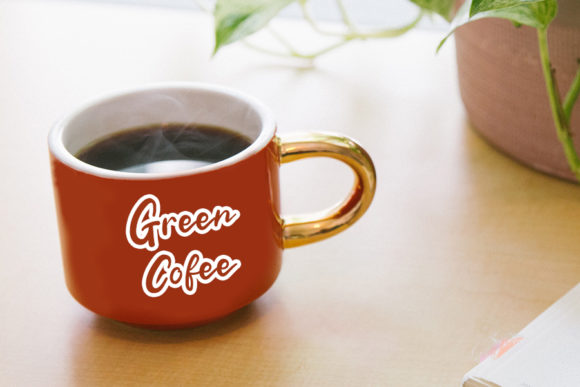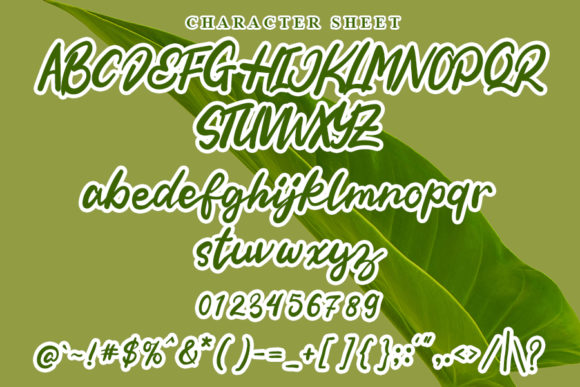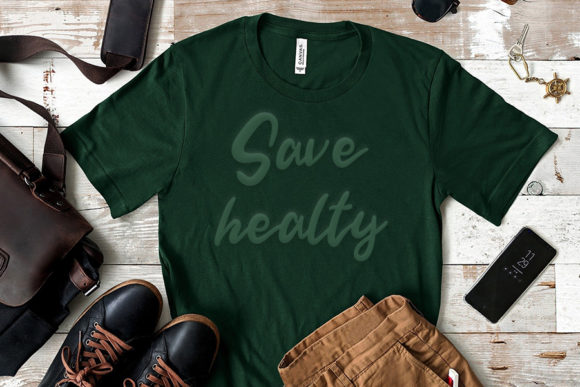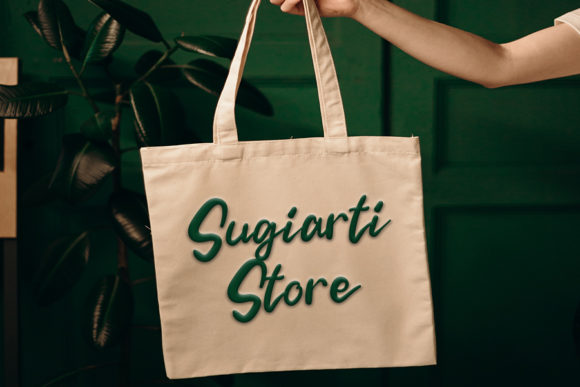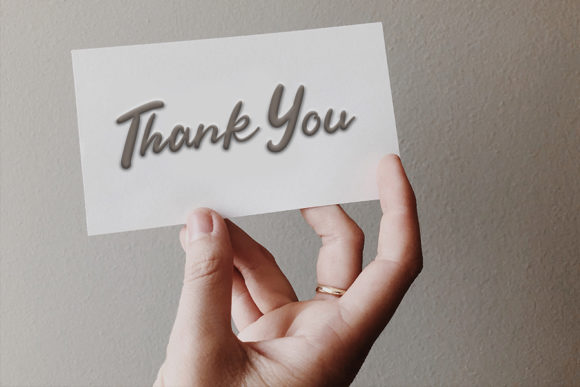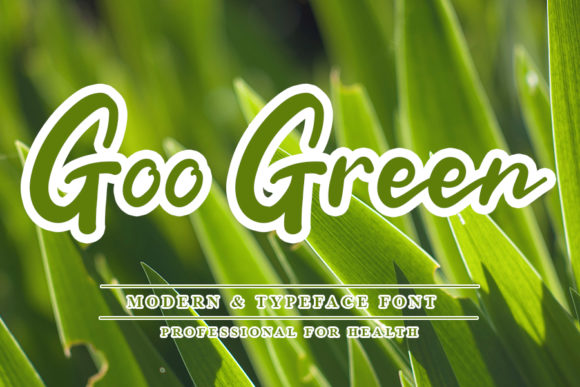
Goo Green Font: A Beautifully Handwritten Typeface for Your Creative Projects
Are you a designer or crafter looking for a unique and romantic font to add a personal touch to your creations? Look no further than Goo Green, a stunning natural handwritten font that exudes joy and elegance. In this article, we’ll explore the characteristics of Goo Green and how it can elevate your designs, from invitations and cards to branding and more.
The Charm of Goo Green
Goo Green is a beautifully crafted handwritten font, characterized by a gorgeous flow that makes it a delight to use. Its dainty and joyful nature makes it perfect for adding a romantic, personalized touch to any design. Whether you’re creating wedding invitations, greeting cards, or social media graphics, Goo Green is sure to captivate your audience with its whimsical charm.
Key Features of Goo Green
- Natural Handwritten Style: Goo Green boasts a beautifully natural handwritten style, complete with subtle imperfections and variations that give it a human touch.
- Dainty and Joyful: The font’s dainty and joyful nature makes it perfect for designs that require a lighthearted and playful feel.
- Romantic and Personalized: Goo Green’s elegant flow and beautiful letterforms make it ideal for creating romantic and personalized designs, such as wedding invitations and love letters.
- Versatile: This font is versatile and can be used for a wide range of design projects, from digital graphics to print materials.
Using Goo Green in Your Designs
Goo Green is an incredibly versatile font that can be used in a variety of design projects. Here are some ideas to get you started:
- Wedding Invitations: Add a romantic touch to your wedding invitations with Goo Green, perfect for creating beautiful and elegant save-the-date cards, wedding programs, and more.
- Greeting Cards: Use Goo Green to create personalized greeting cards for special occasions, such as birthdays, anniversaries, and holidays.
- Branding: Incorporate Goo Green into your brand identity for a unique and playful touch, perfect for businesses that want to stand out from the crowd.
- Social Media Graphics: Use Goo Green to create eye-catching social media graphics, such as quotes, promotions, and announcements.
Tips for Pairing Goo Green with Other Fonts
Pairing Goo Green with other fonts can create a stunning visual effect. Here are some tips for combining Goo Green with other typefaces:
- Pair with a Serif Font: Combine Goo Green with a classic serif font, such as Times New Roman or Garamond, for a sophisticated and elegant look.
- Match with a Script Font: Pair Goo Green with another script font, such as Pacifico or Great Vibes, for a beautiful and flowing design.
- Contrast with a Bold Font: Use Goo Green alongside a bold font, such as Arial Black or Impact, to create a striking contrast and add visual interest.
Goo Green is a beautiful and versatile handwritten font that’s perfect for designers and crafters looking to add a romantic and personalized touch to their creations. With its natural flow, dainty and joyful nature, and elegant letterforms, Goo Green is sure to captivate your audience and elevate your designs. Whether you’re creating wedding invitations, greeting cards, or social media graphics, Goo Green is an excellent choice for any design project.